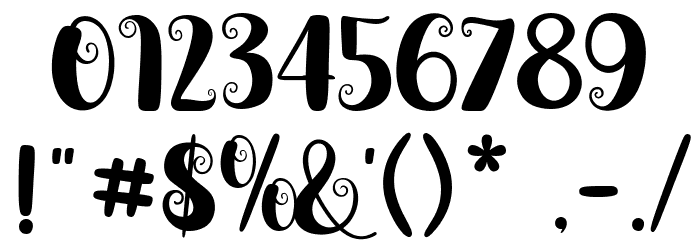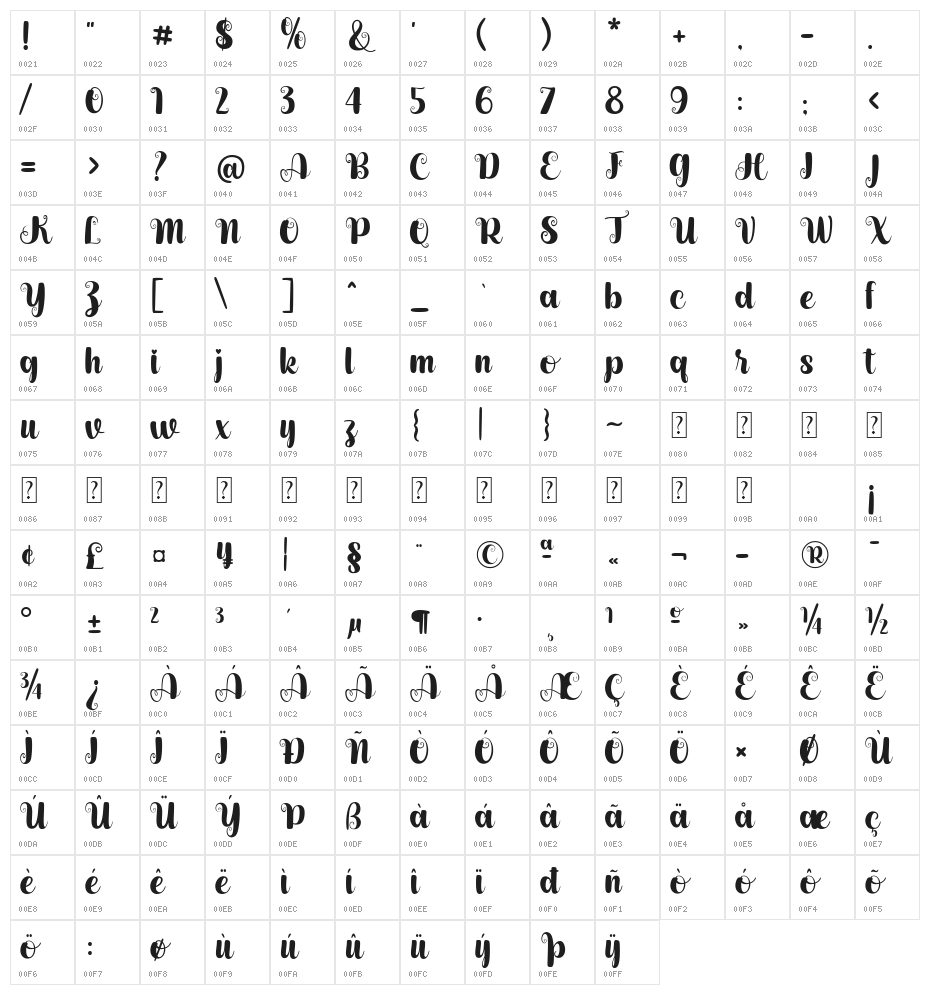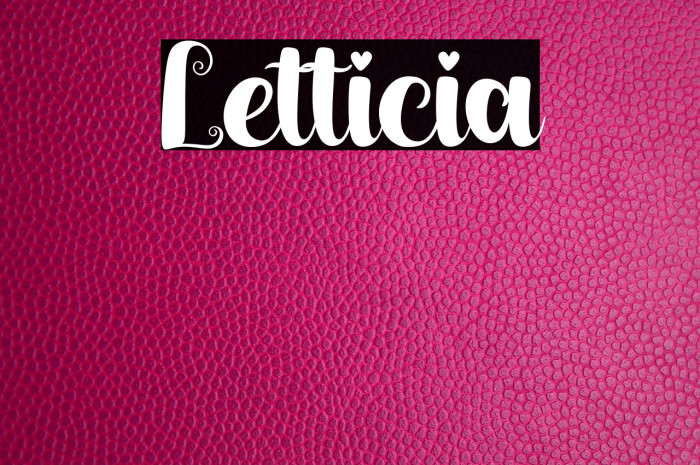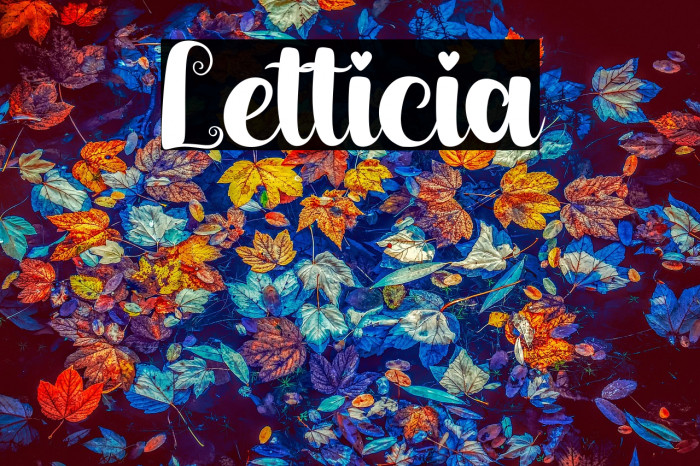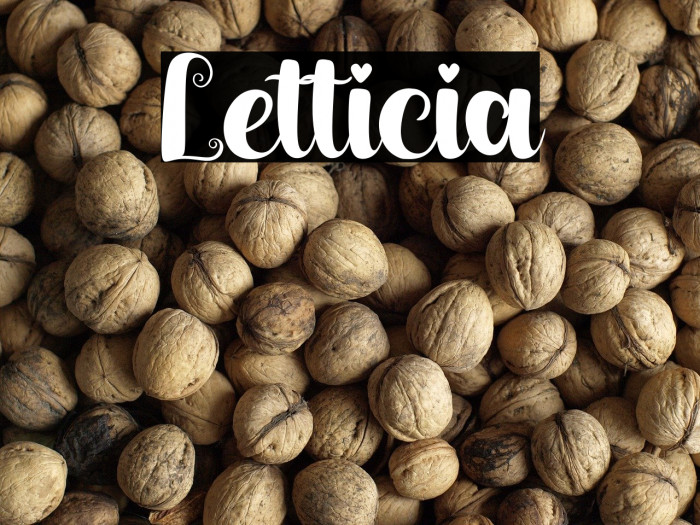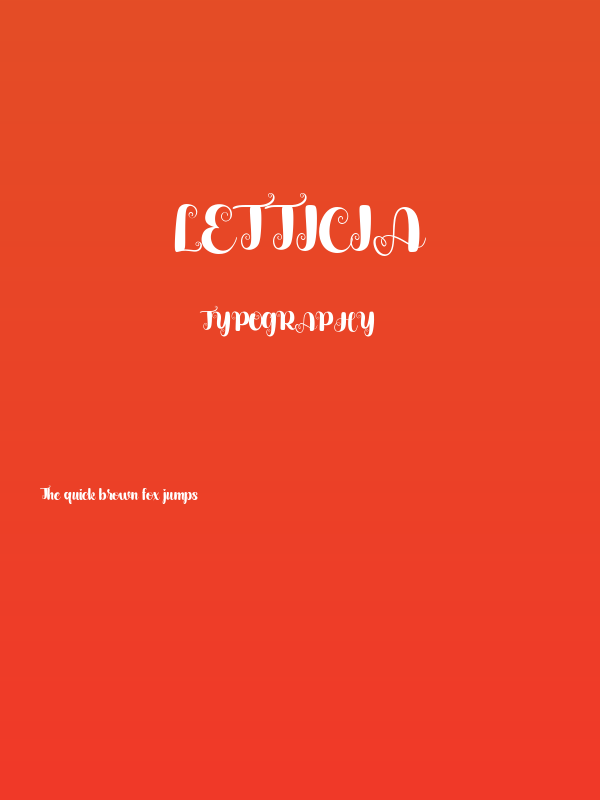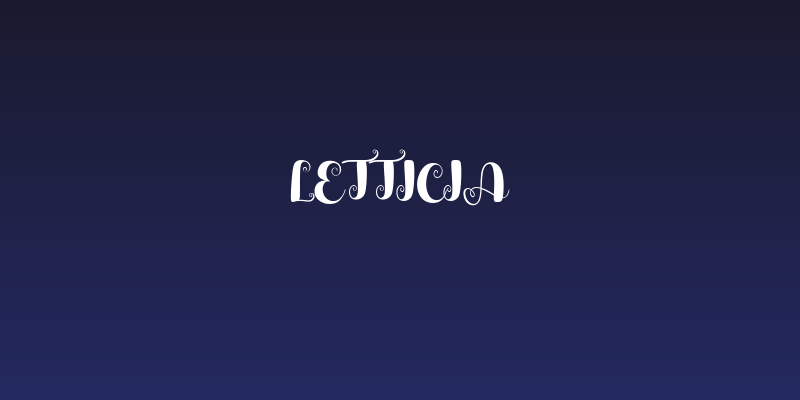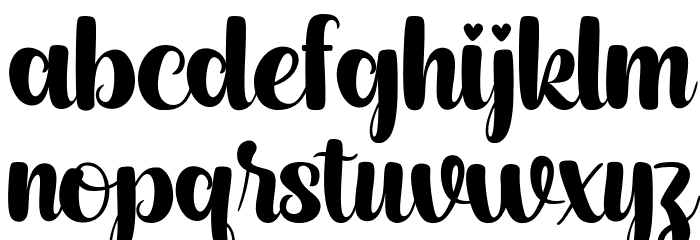
Letticia Font
Letticia Description
This font features an elegant and whimsical design, characterized by its decorative swirls and curls that embellish each letter. The uppercase letters are bold and ornate, with intricate loops that add a touch of sophistication. The lowercase letters maintain a playful yet refined appearance, with consistent stroke thickness that ensures readability. Numbers and special characters are equally adorned with subtle flourishes, making them visually cohesive with the alphabet. This font's unique style is perfect for adding a creative flair to any project, while still maintaining legibility.
| Use Case | Headlines, Logos, Invitations |
| Proposed Projects | Ideal for wedding invitations, greeting cards, branding, and decorative headlines. |